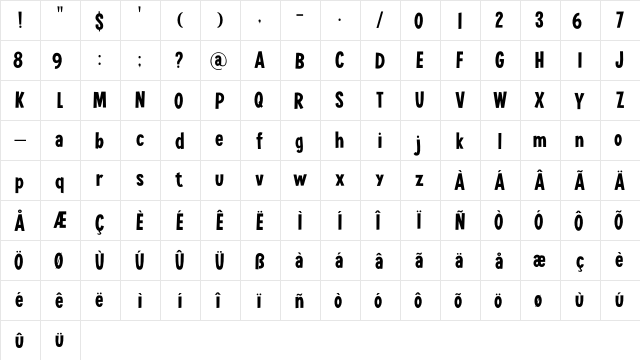
Lucky Goldfish DEMO Regular
| Foundry | David Kerkhoff |
| Designer | David Kerkhoff |
Design Context for Lucky Goldfish DEMO Typeface
Lucky Goldfish DEMO takes a measured approach to typography — its balanced proportions and neutral character make it a reliable workhorse for both digital and print work.